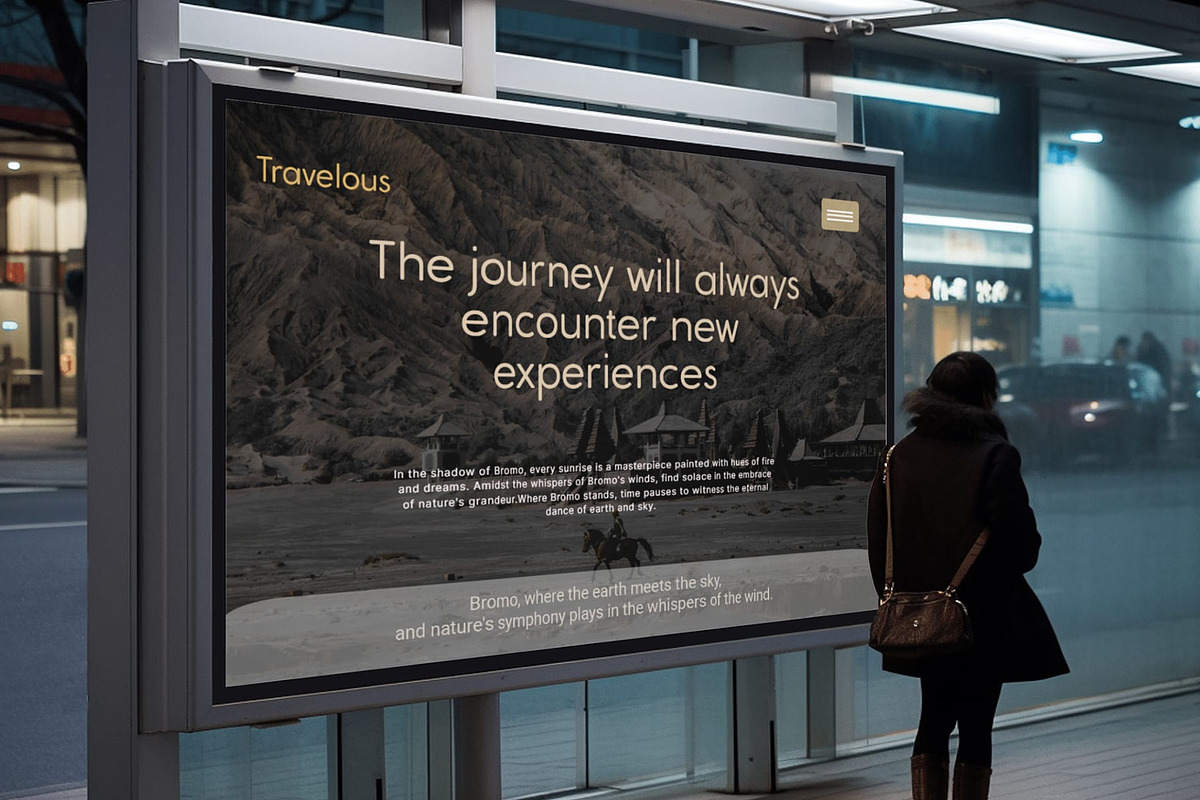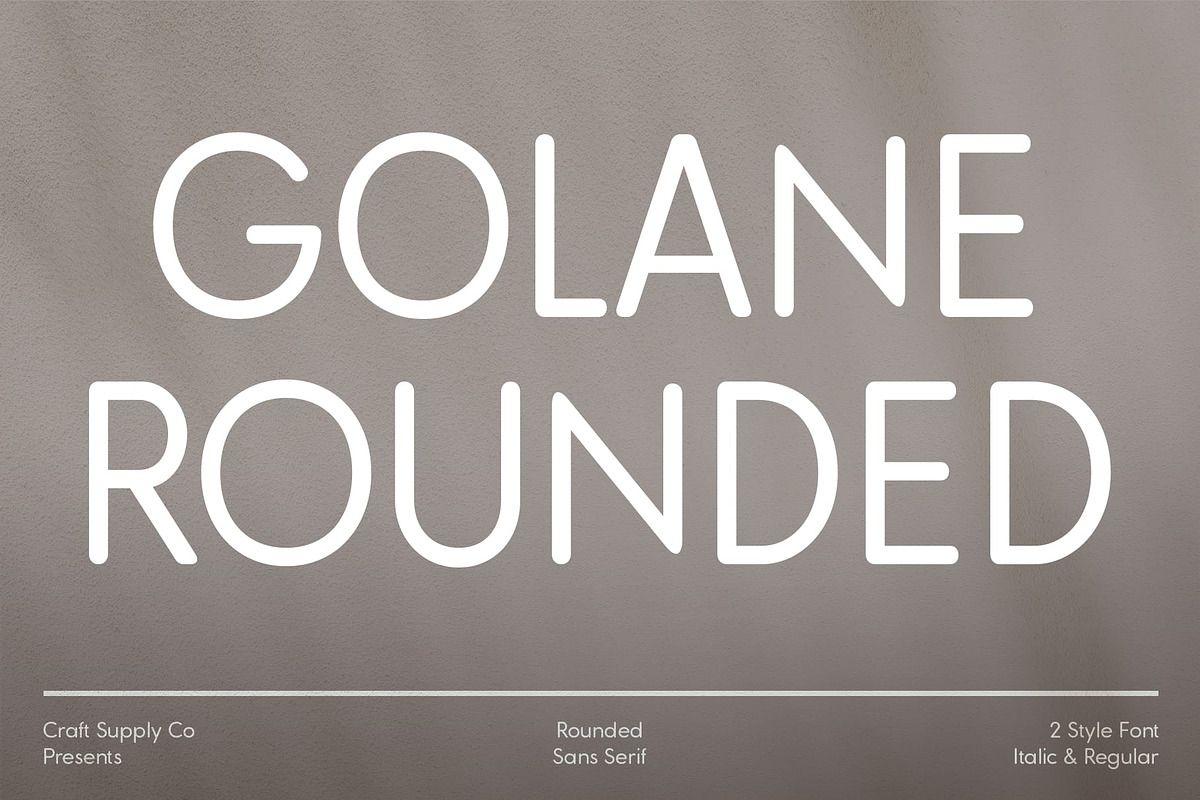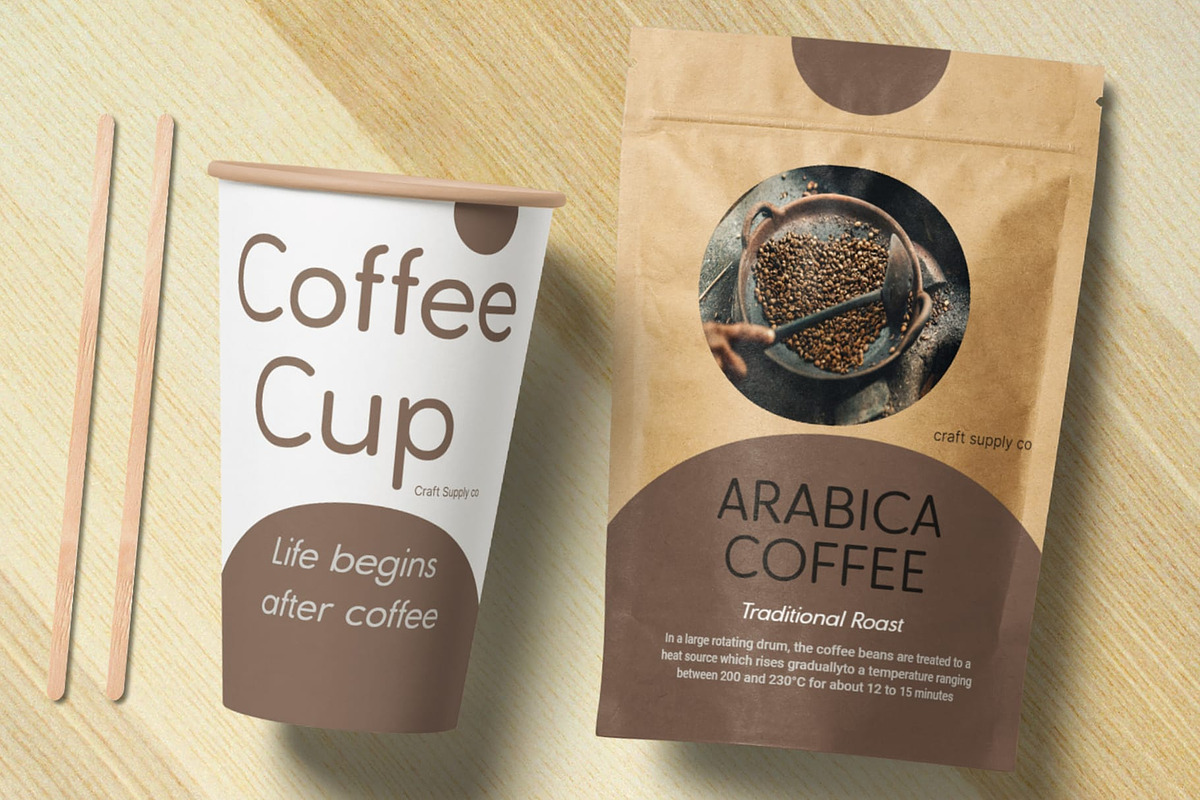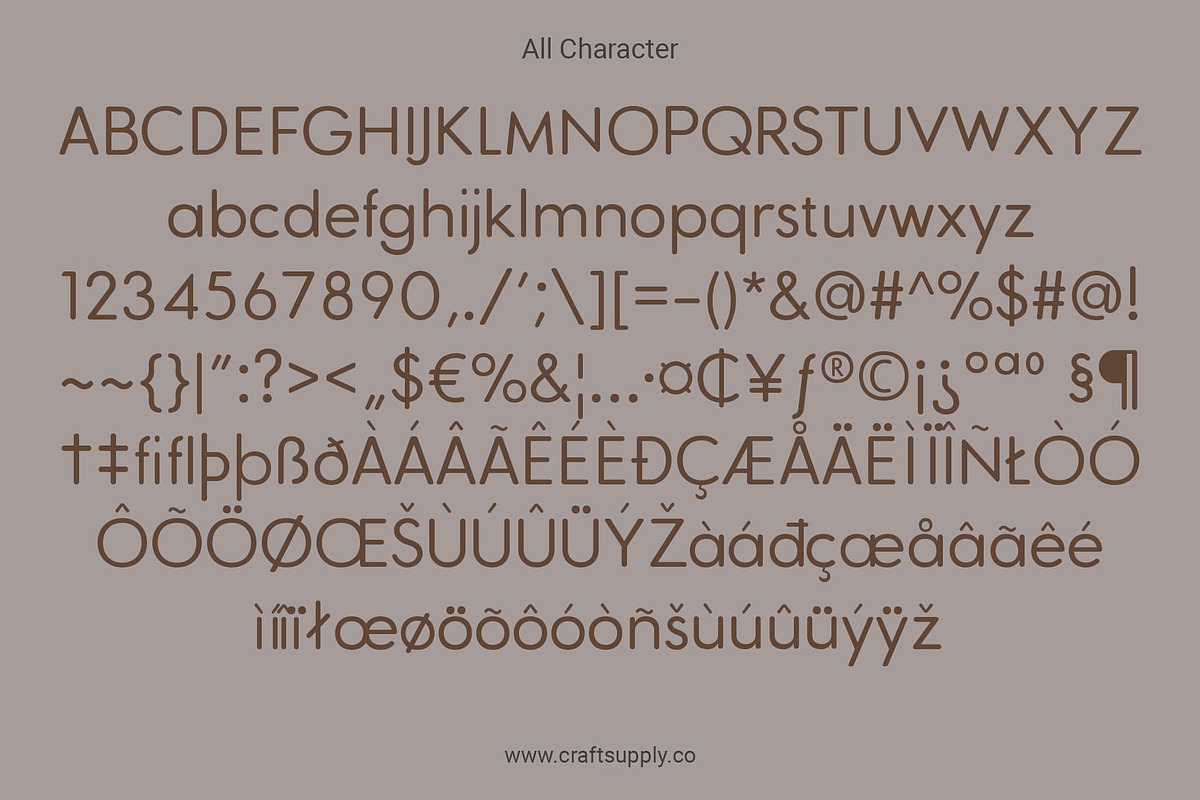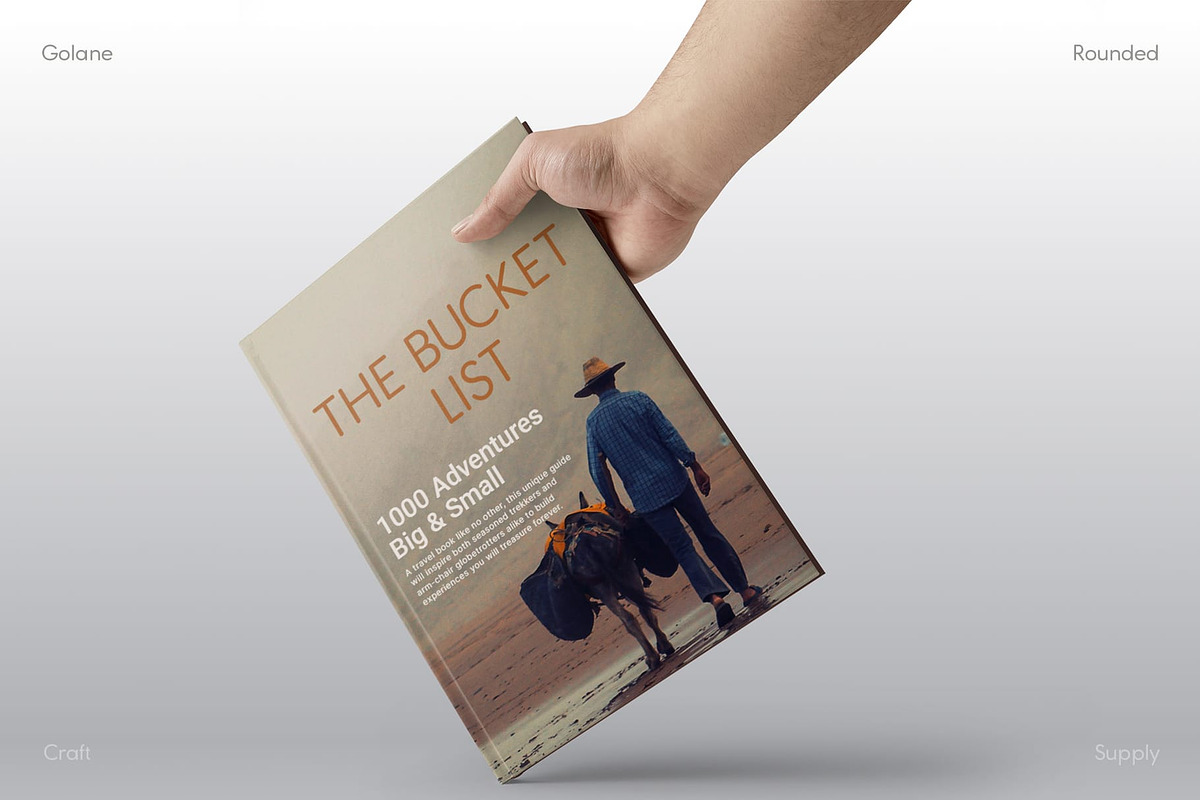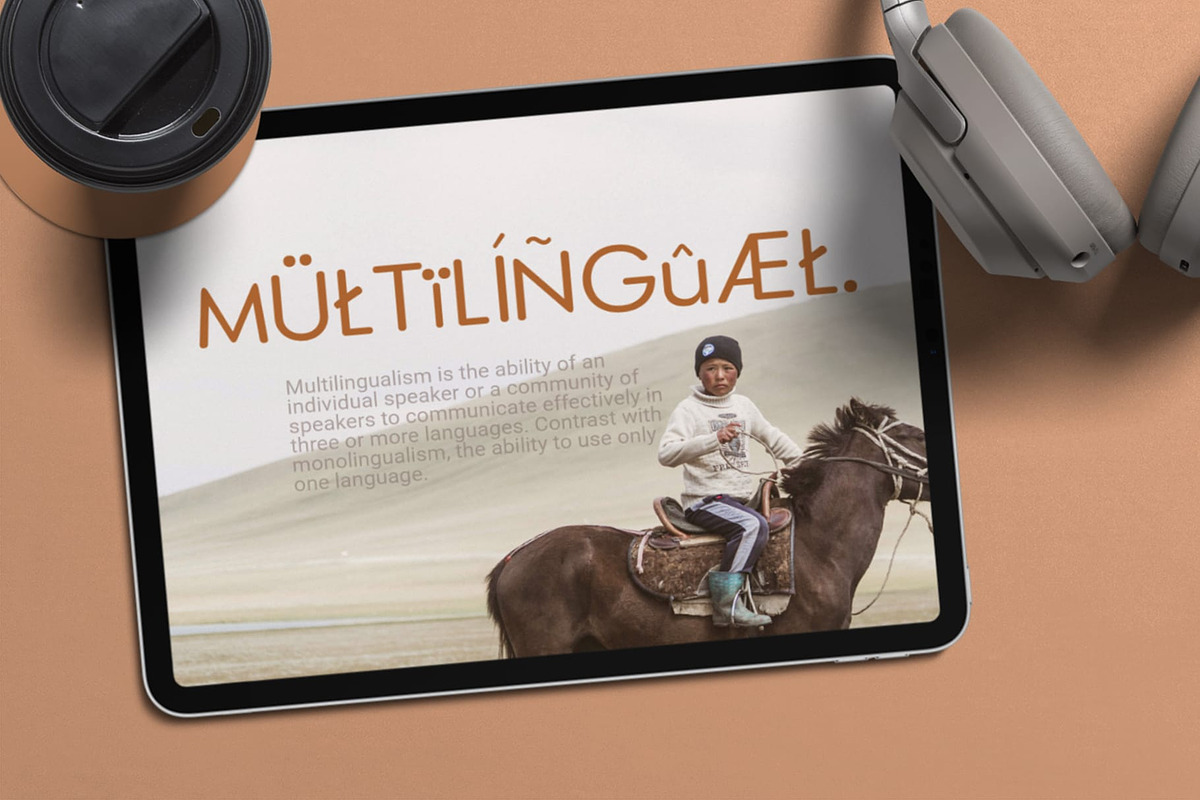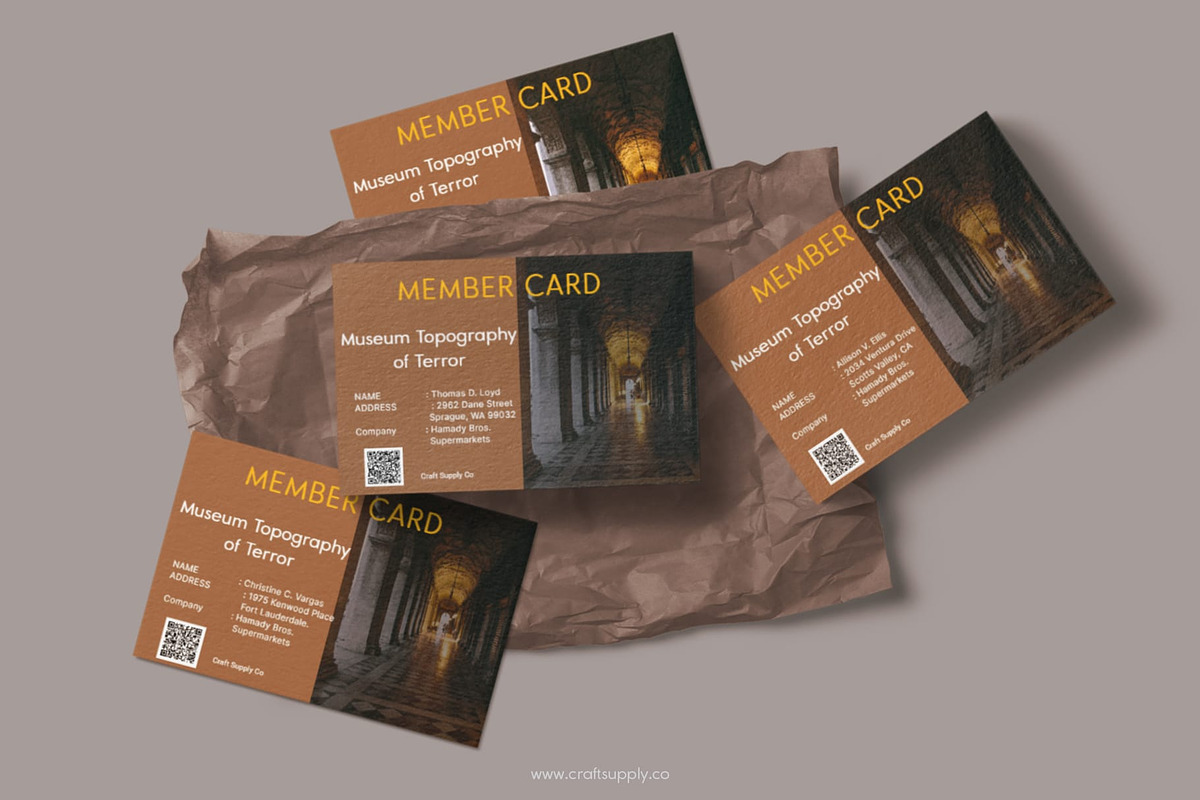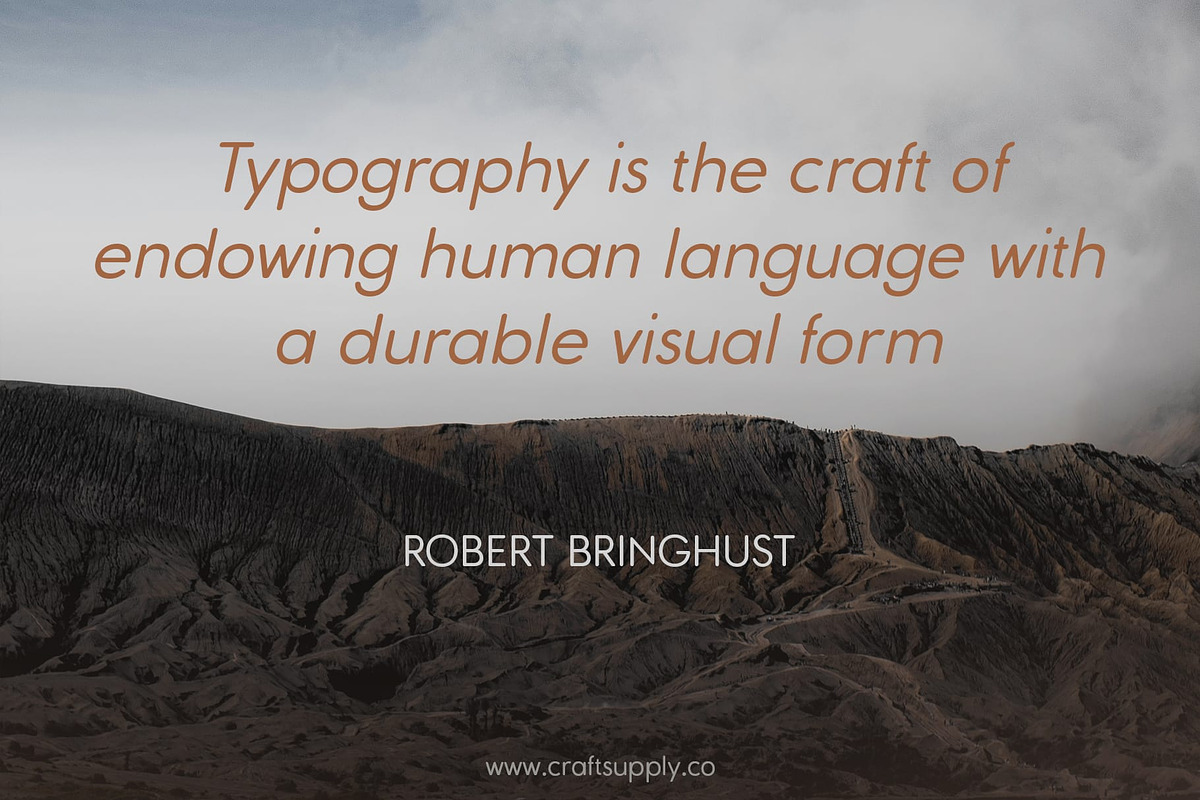
Golane Rounded
Golane Rounded: Sleek and Minimal Sans Serif
Streamlined Elegance Golane Rounded presents a sleek sans serif design with softly rounded edges, epitomizing minimalist elegance and contemporary style.
Clean Lines, Modern Appeal Featuring clean lines and a modern aesthetic, This font exudes sophistication while maintaining a minimalist charm, perfect for various design applications.
Versatile Simplicity With its slim profile and rounded terminals, This font offers versatility in usage, seamlessly adapting to diverse design contexts from branding to web design.
Effortless Modernity This font effortlessly blends modernity with simplicity, making it an ideal choice for those seeking a clean, contemporary sans serif font with a touch of warmth.
Effortlessly Chic This font stands as a testament to timeless simplicity and modern sophistication. Its slender form and rounded details combine to create a font that is both versatile and visually appealing, ensuring it remains a staple in minimalist design aesthetics.